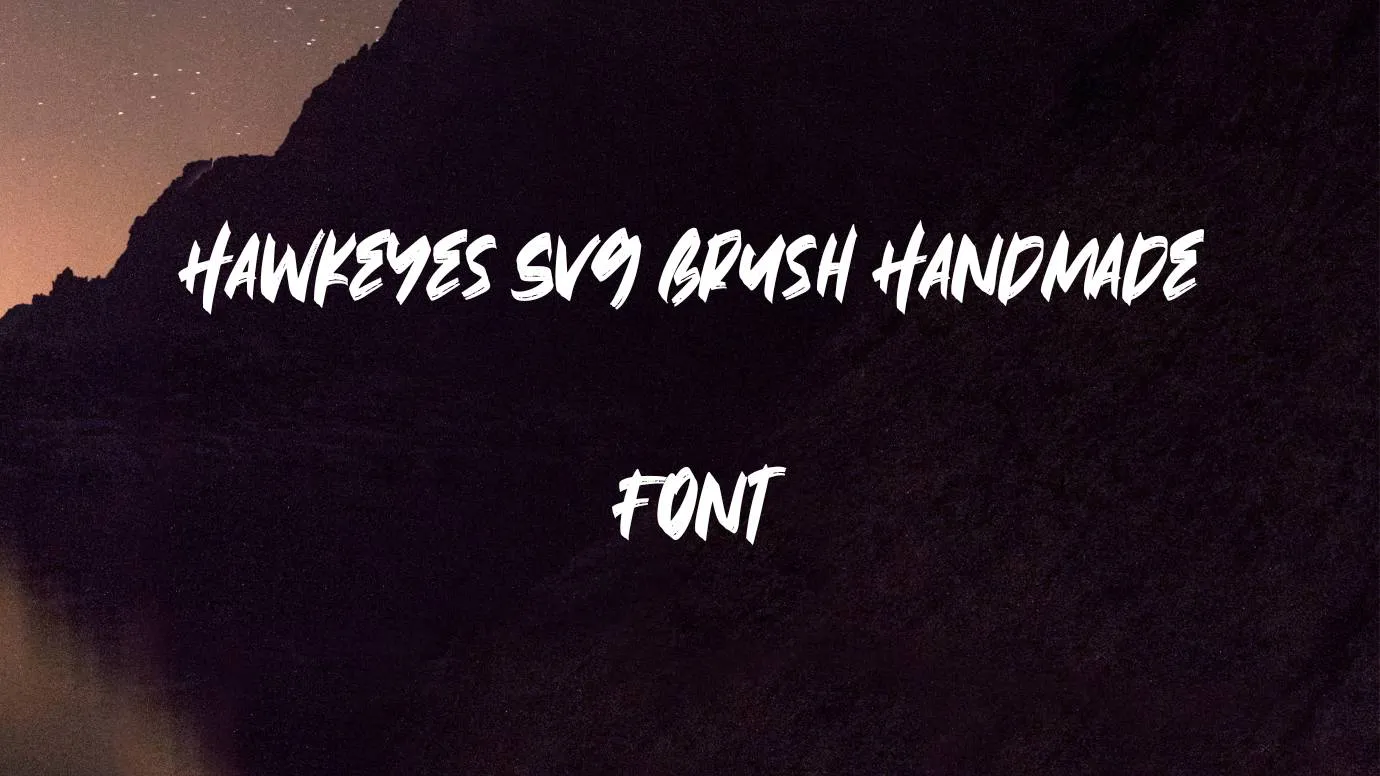
Hawkeyes SVG Brush Handmade Font Family is a brush typeface. After a lot of hard work, this typeface was finally designed by Maulana Creative. This texture is attainable with SVG (OTF), TTF, OTF, and WOFF formats.
Due to its stylish glimpses, this font family is good for creating the hungry font which has bold swashes. This classic typeface has a free text generator tool and you could copy and paste text on this tool.
Hawkeyes SVG Brush Handmade Font